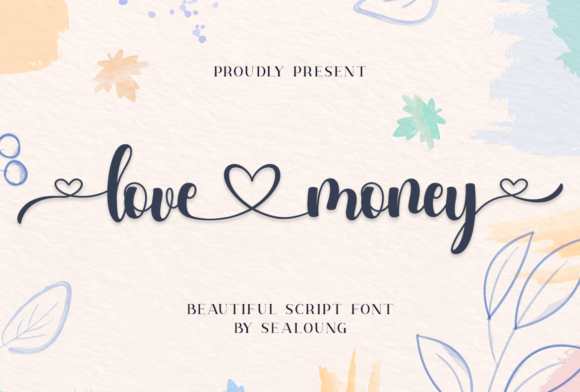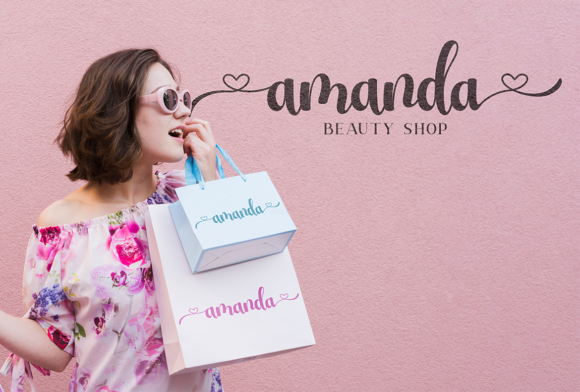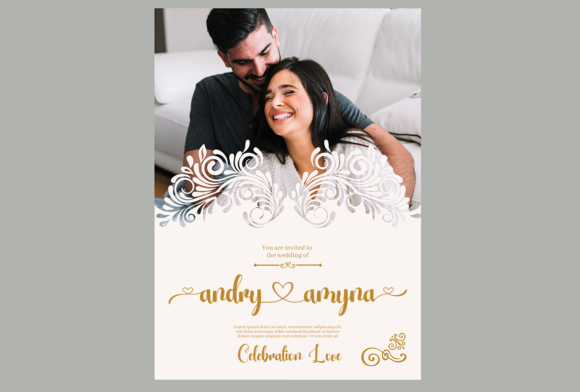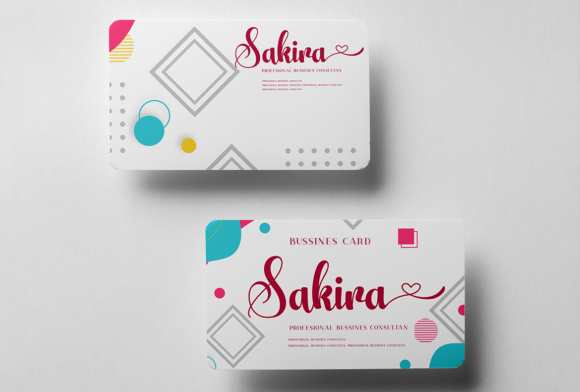
Love Money Font
About the Love Money Font
Introducing the Love Money Font, a beautifully crafted typeface designed to elevate your creative projects. Love money is a visually romantic script font with heart ornaments that adds to this lovely font. It looks stunning on wedding invitations, valentine’s cards, quotes, greeting cards, logos, business cards, and every other design which needs a handwritten touch. It features a varying baseline, smooth lines, gorgeous glyphs and stunning alternates.
Love Money’s romantic style shines in headlines, short quotes, and branding projects requiring a handcrafted feel. It’s ideal for wedding stationery, logos for boutiques, or packaging for luxury goods. However, its decorative nature makes it unsuitable for body text or UI elements; the varying baseline and ornate details would hinder readability in extended passages.
Pair Love Money with a clean sans-serif like Montserrat for a contemporary contrast, or a classic serif like Garamond for a more traditional feel. For a playful touch, consider pairing it with a geometric sans-serif such as Futura. Avoid pairing it with other highly decorative scripts, as this could create visual overload.
The font’s personality is undeniably romantic and elegant, yet maintains a friendly approachability. It conveys a sense of luxury and warmth, making it perfect for brands focused on love, beauty, or handcrafted goods.
Love Money Font Usage Examples
Love Money Font Example